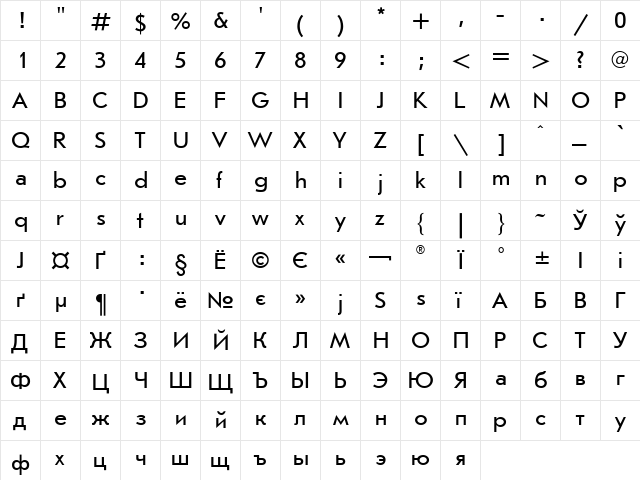
UkrainianJournalSans Regular
Design Context for UkrainianJournalSans Typeface
UkrainianJournalSans is a composed and adaptable typeface that performs quietly and consistently across a wide range of design contexts.